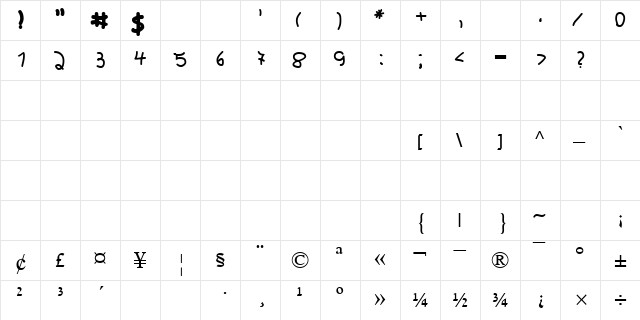
ANS dislekt Regular
ANS dislekt takes a measured approach to typography — its balanced proportions and neutral character make it a reliable workhorse for both digital and print work.